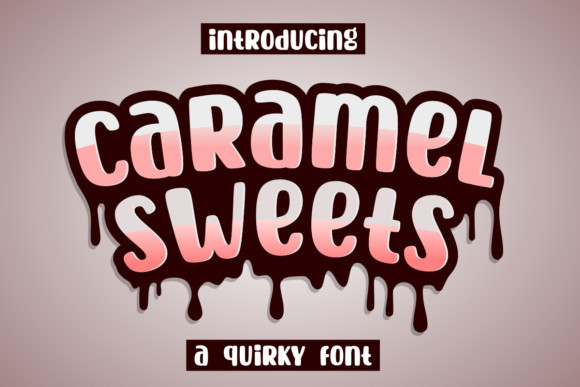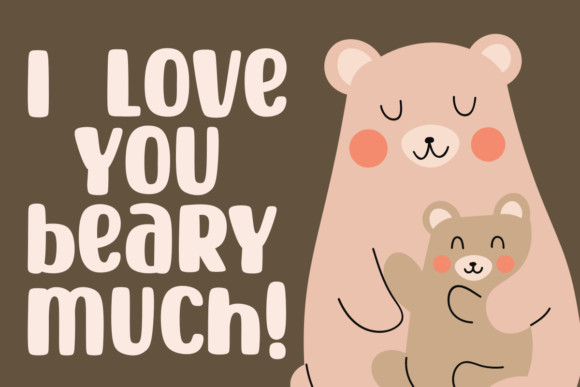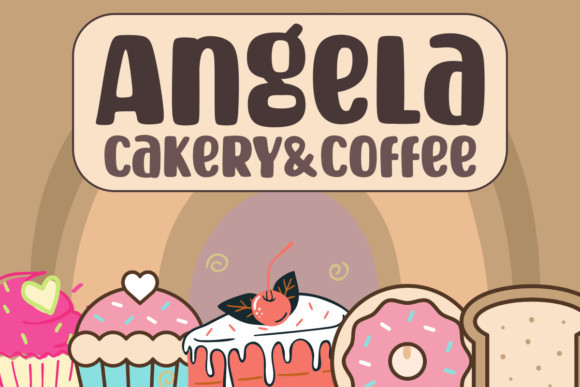
Caramel Sweets Font
Caramel Sweets is a great and quirky display font. It will look great on product packaging, stationery, logos, posters and more! It is the perfect font for making original and outstanding designs.